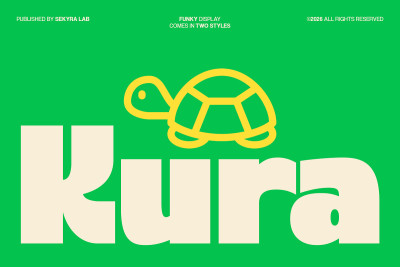
Kura – Funky Bold Display Sans Font
Kura – Funky Bold Display Sans stands out as a reliable typeface choice for designers seeking clarity without sacrificing character.
Common applications include business cards, posters, web headers, advertising materials, book covers, and corporate identity systems.